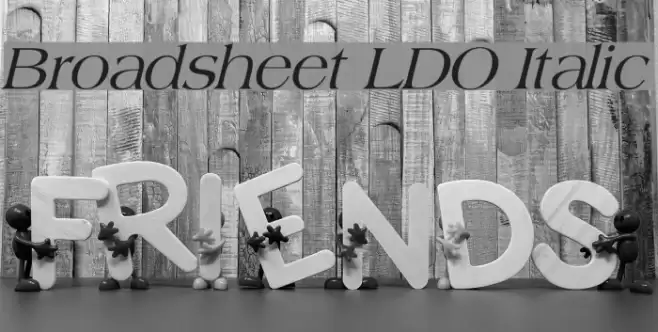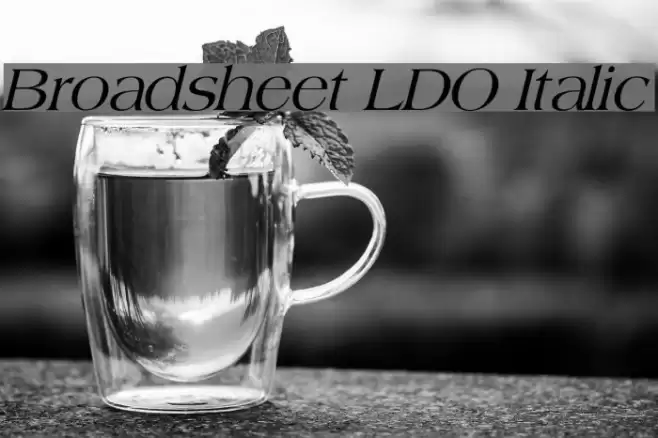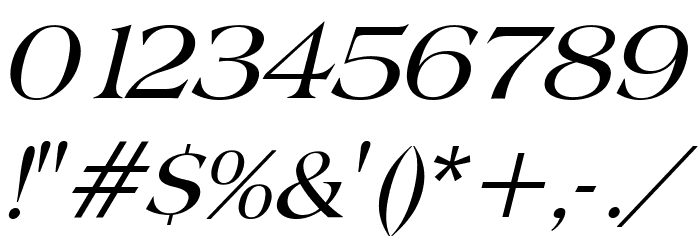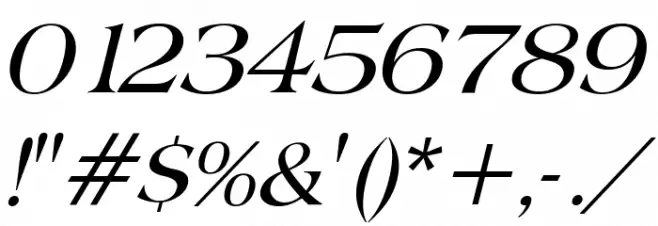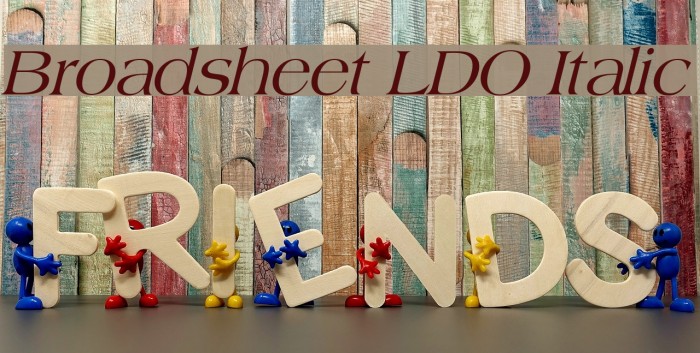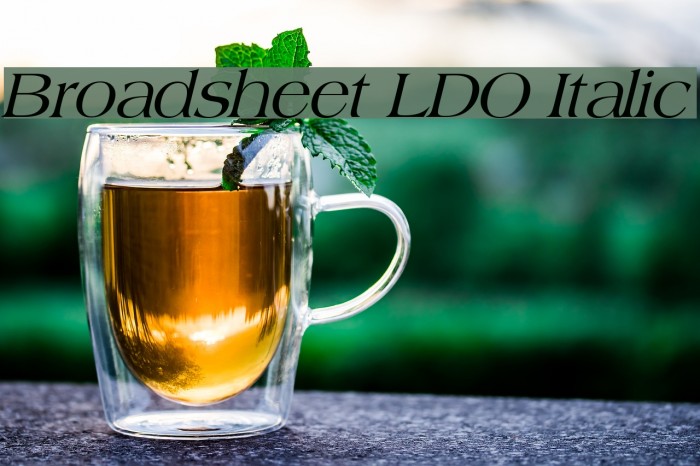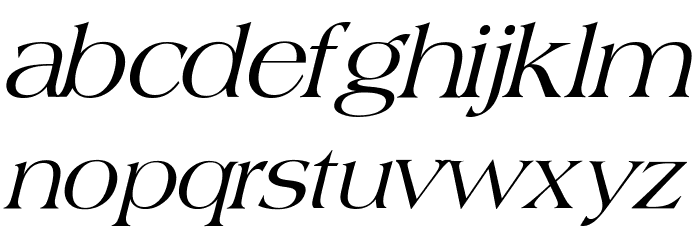
Broadsheet LDO Italic Font
Broadsheet LDO Italic Description
This elegant serif font features a classic italic style with a refined and sophisticated appearance. The letters are slightly slanted, adding a sense of motion and grace. The strokes are smooth and consistent, with moderate contrast between thick and thin lines, enhancing readability while maintaining a stylish look. The uppercase characters are bold and commanding, while the lowercase letters are more delicate, providing a balanced visual harmony. The numerals are clear and distinct, making them suitable for various applications. Special characters are well-integrated, maintaining the font's overall aesthetic. This font is ideal for projects that require a touch of elegance and tradition.
An elegant serif italic font with moderate contrast and refined style from Uncategorized fonts.
- Proposed Projects: Perfect for wedding invitations, formal documents, luxury branding, and editorial design.
- Overall Style: Classic